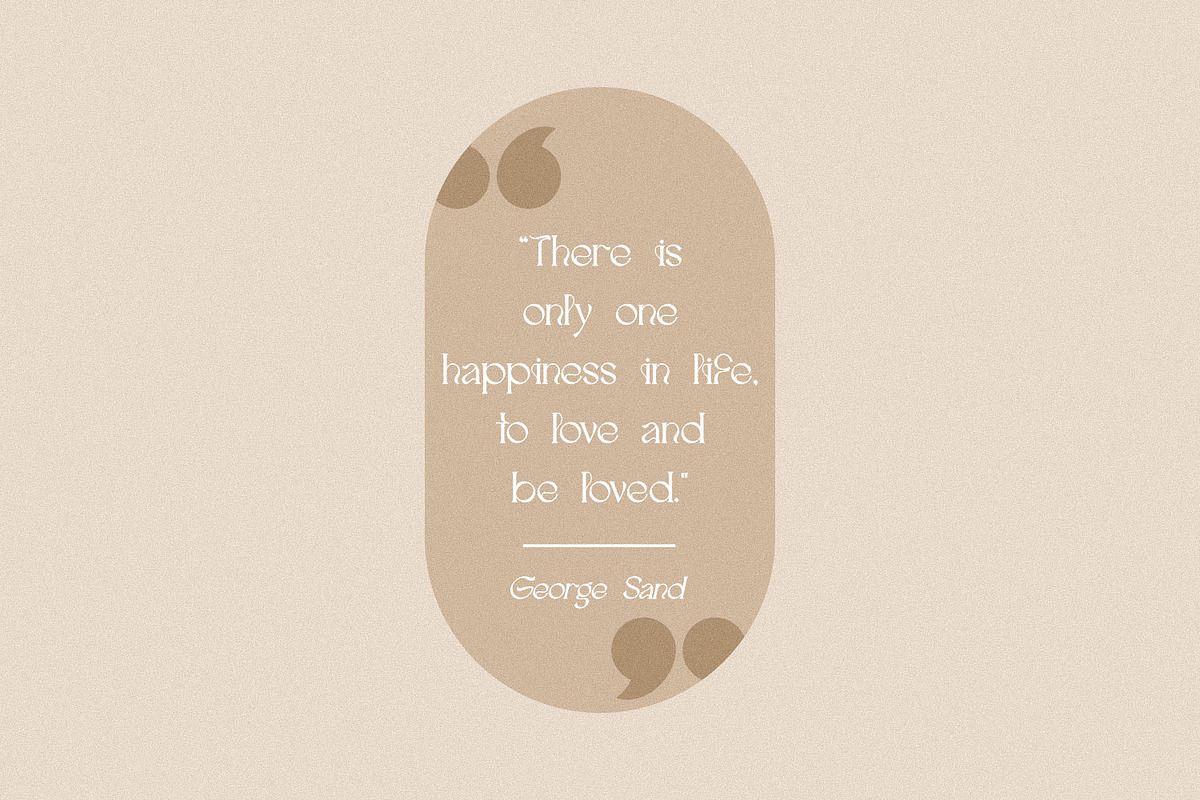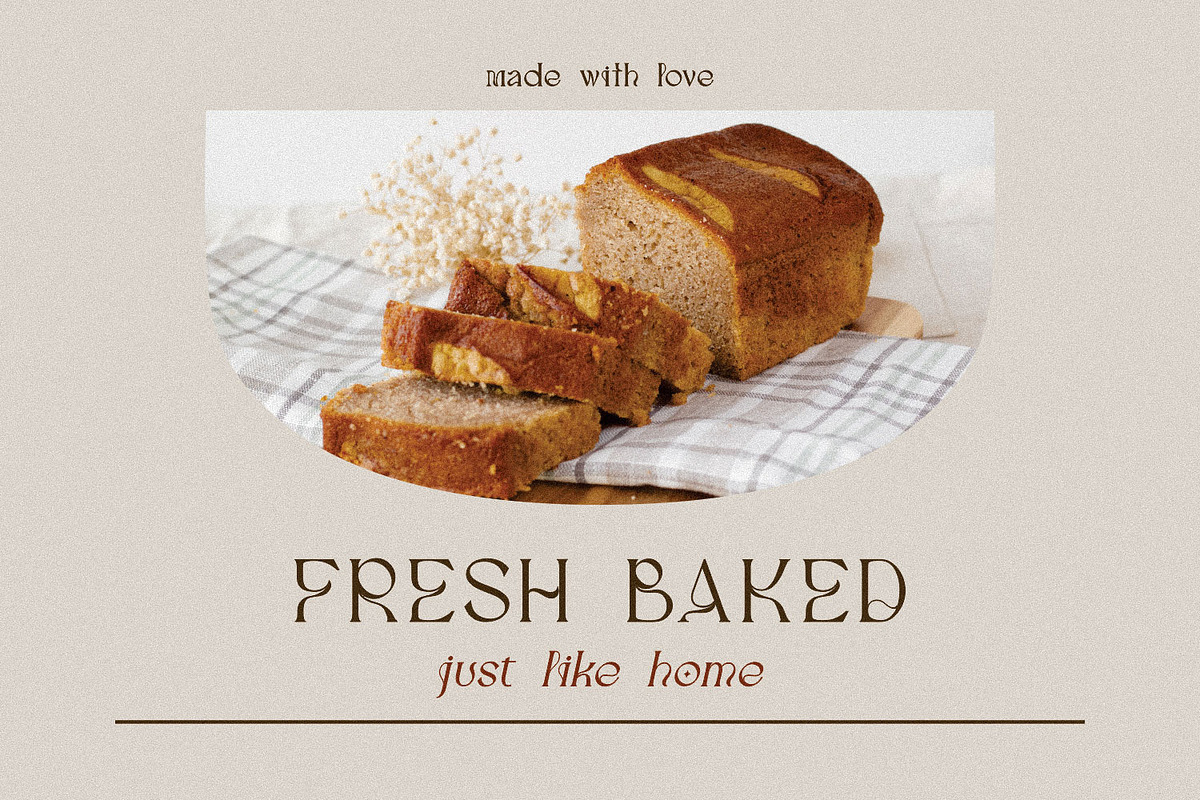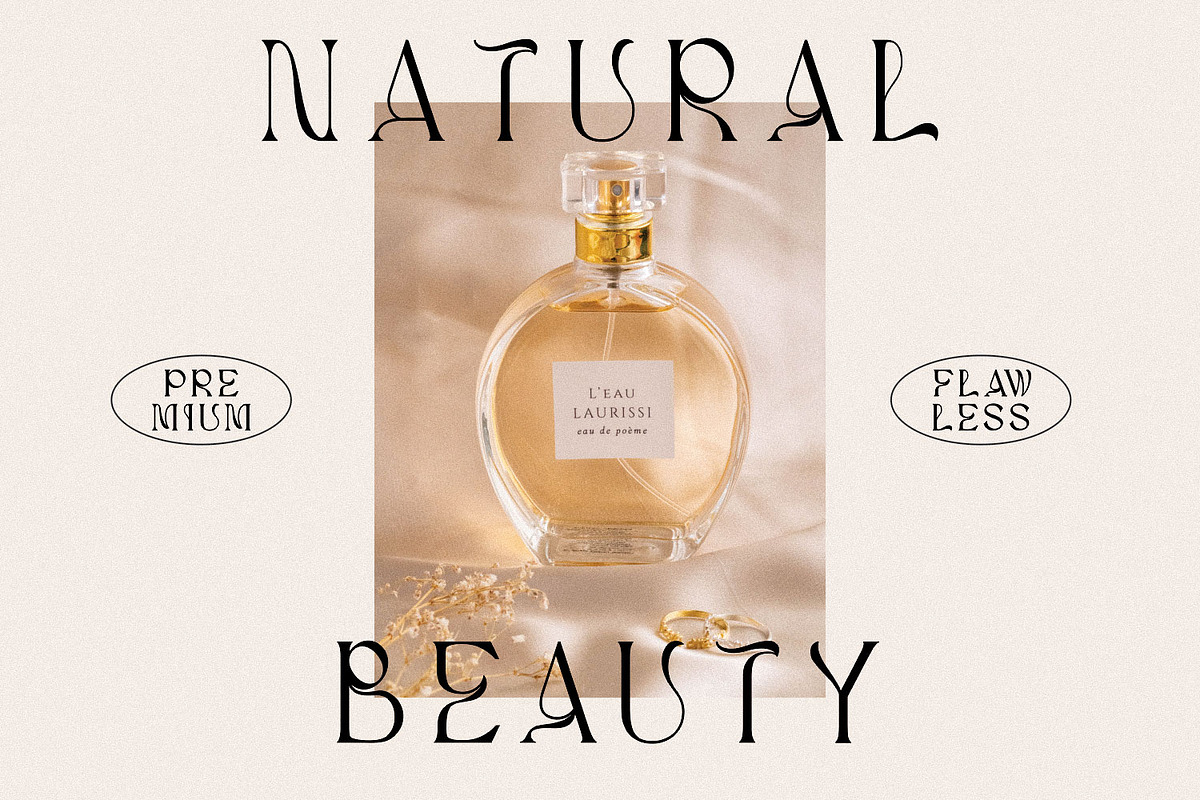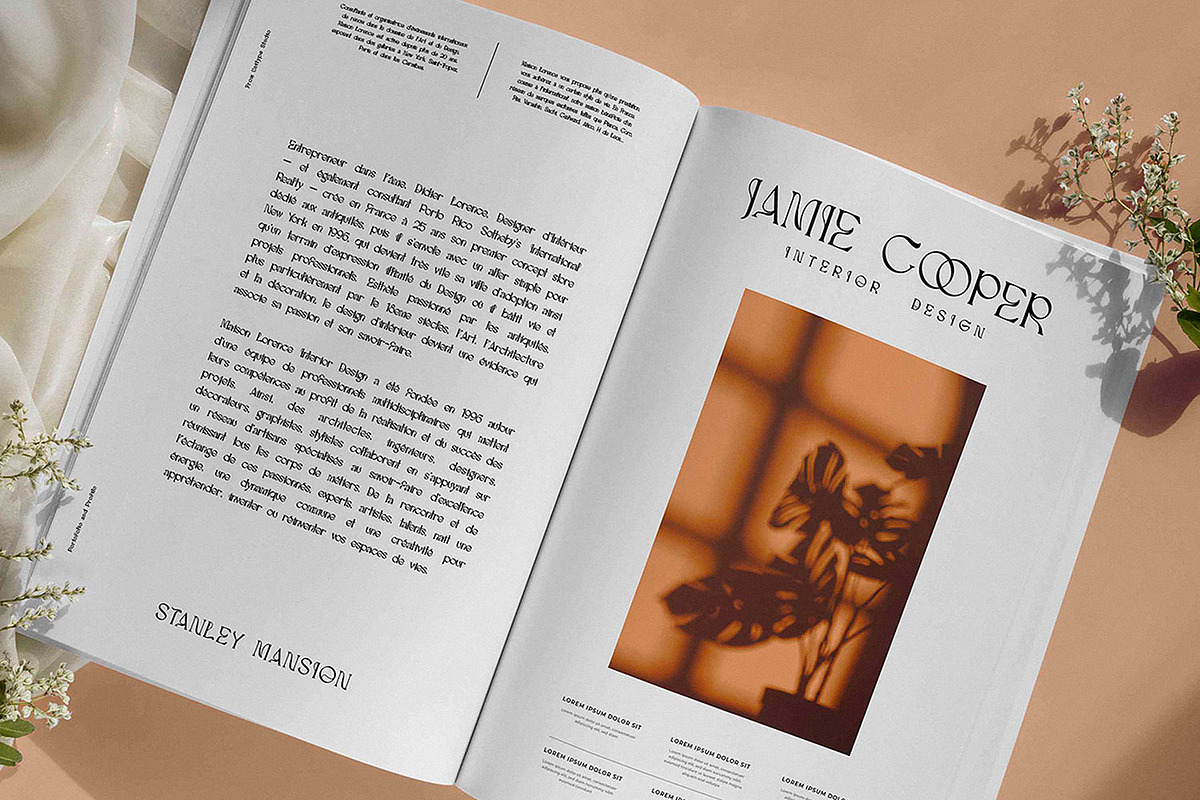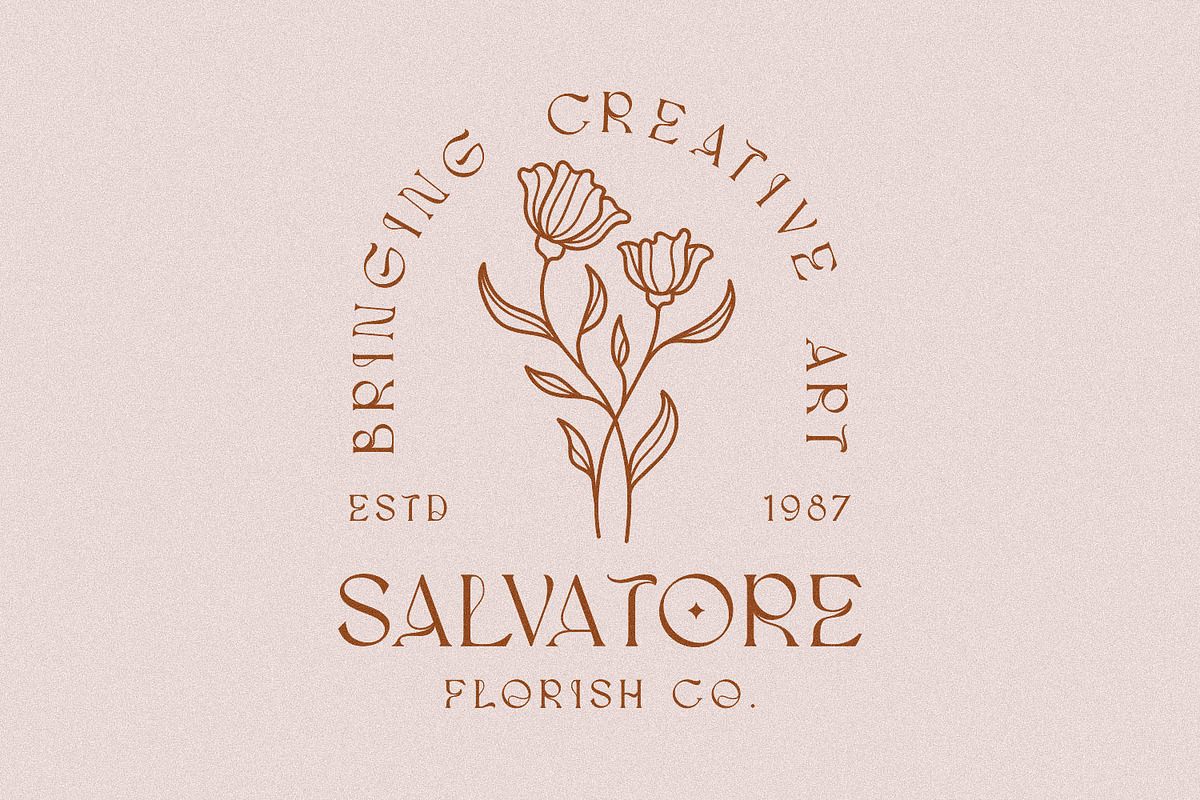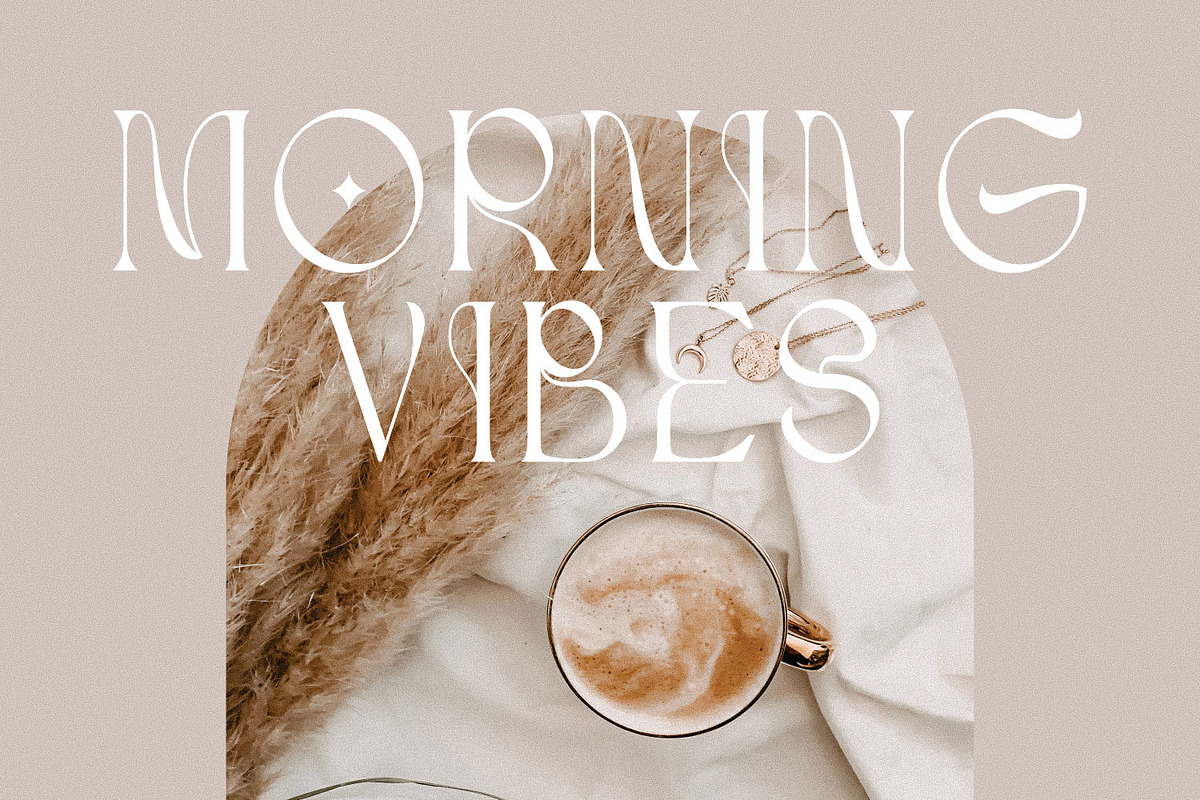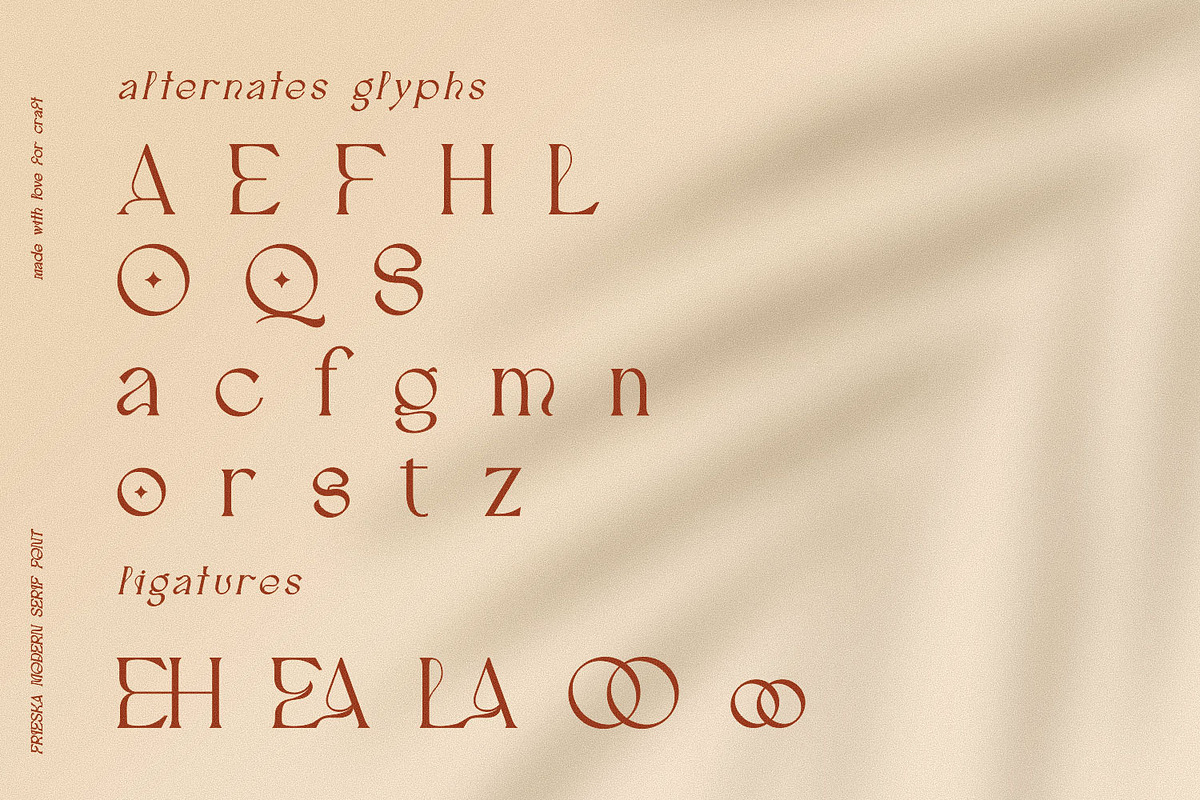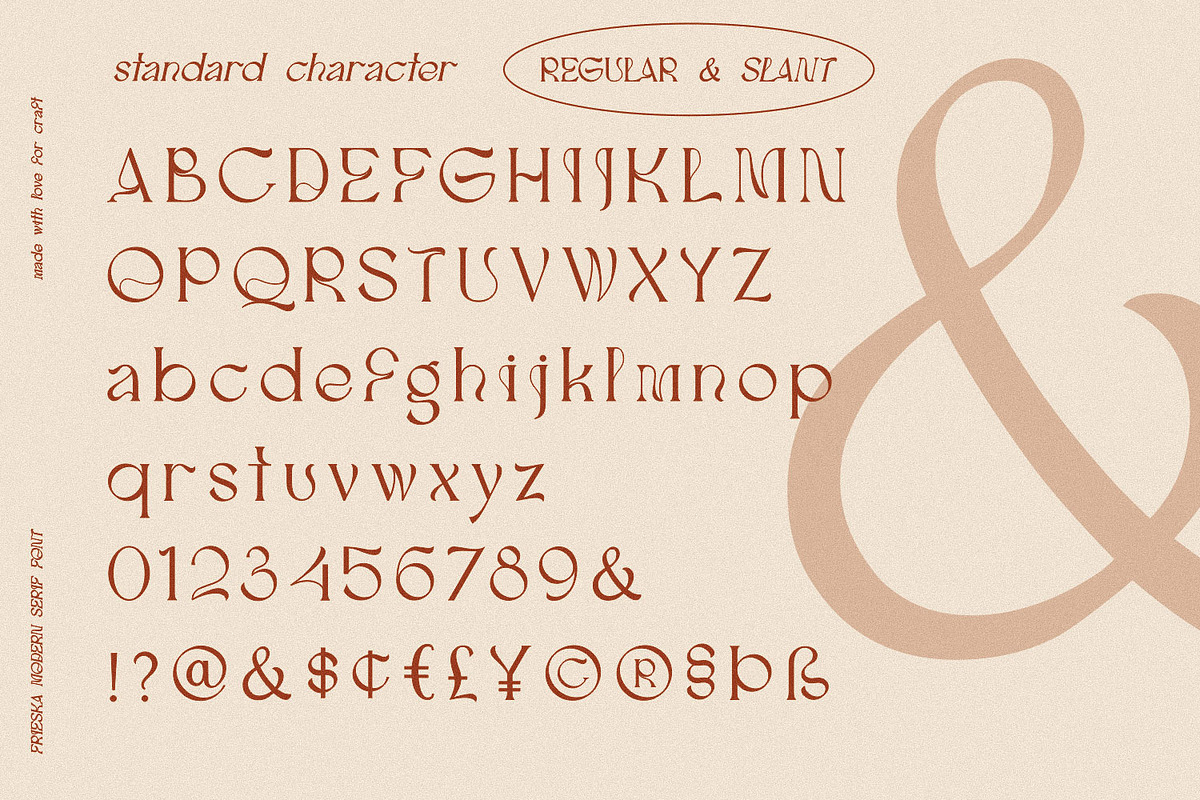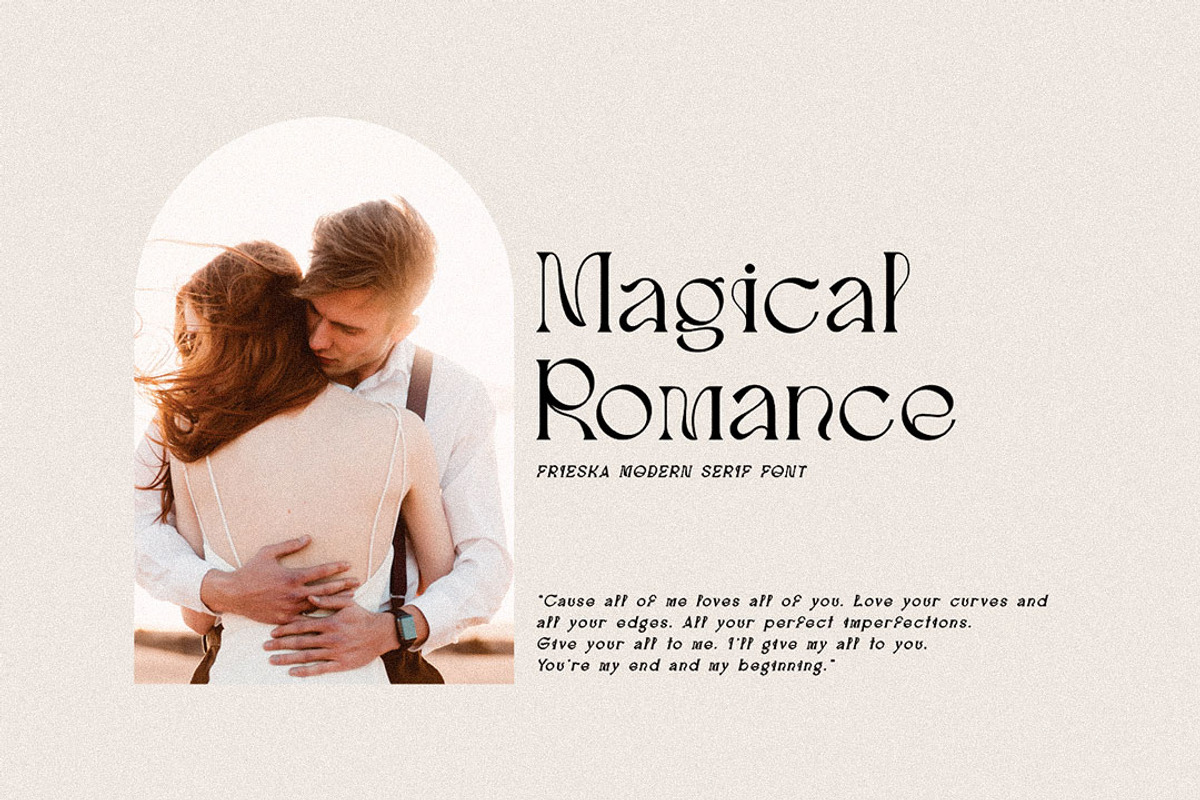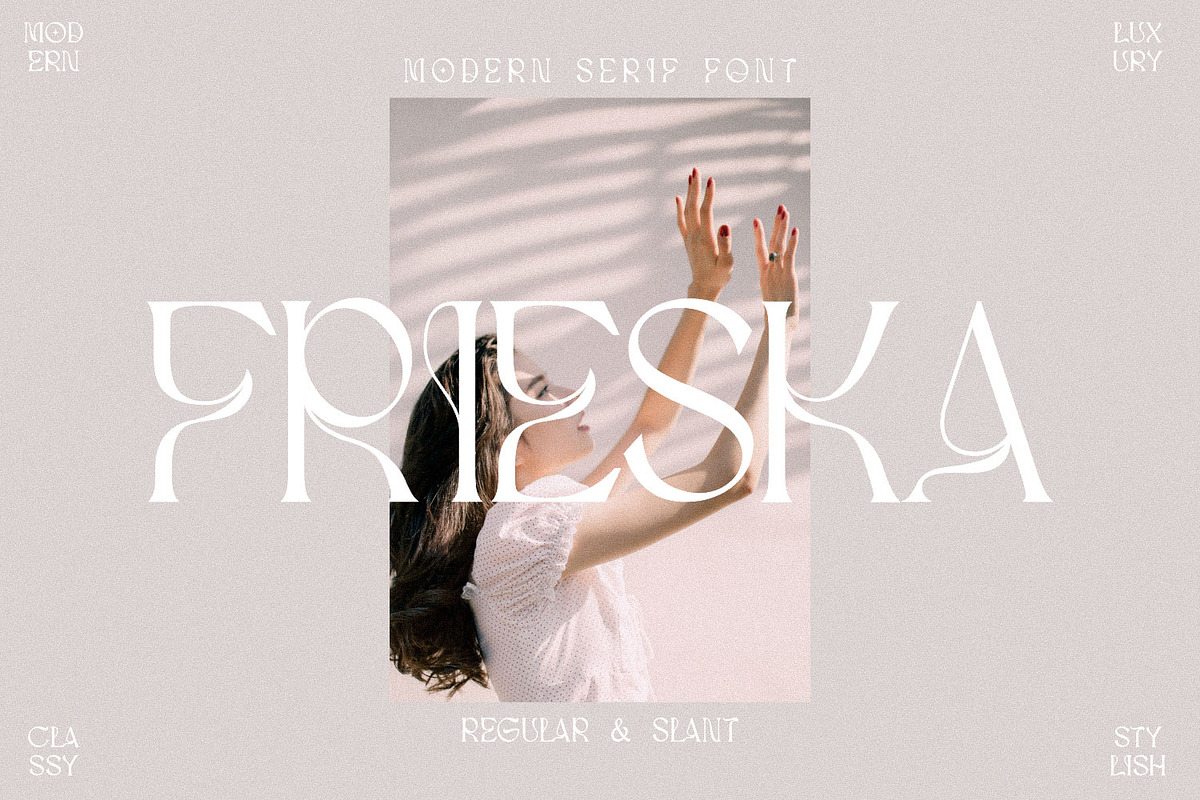
FRIESKA
FRIESKA is a modern serif typeface. It is consist two styles : Regular and Slant.
This gorgeous font will engage your audience and make your promotions and projects stand out. Bring your branding to life and add a touch of modernity and style with this font. It’s the perfect fit for all luxury projects, such as wedding invitation, signatures, luxury logos, printed quotes, grettings cards, social media headers, product packaging and many more!
This font coming with a lot of language support, this font is perfect for you.